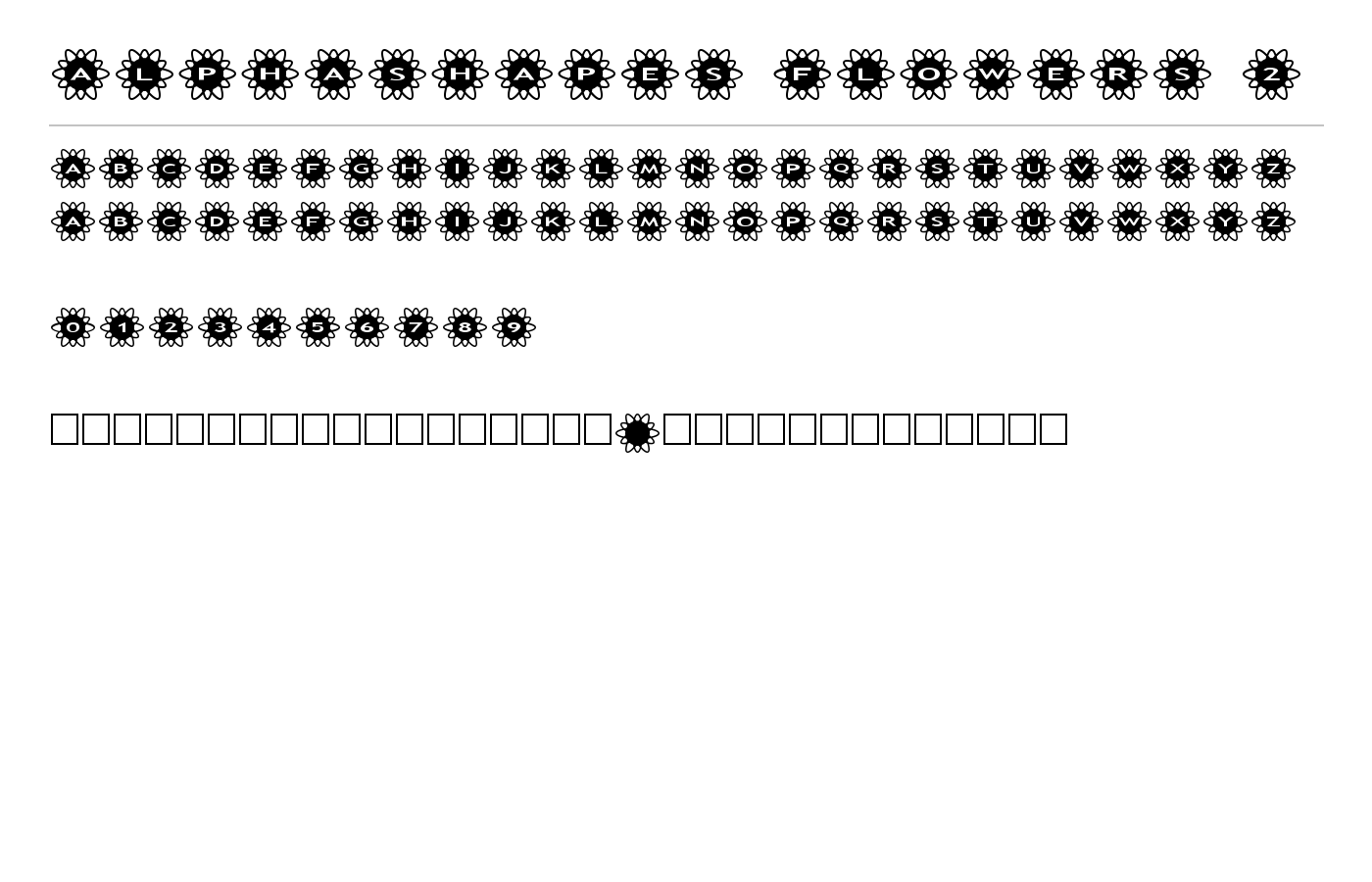
AlphaShapes Flowers 2 is a playful decorative font featuring bold, uppercase letters enclosed within charming floral shapes. With its whimsical and eye-catching design, this font is perfect for creative projects, such as party invitations, children's materials, or fun branding that seeks a cheerful and lively feel. Its unique flower motifs make it an excellent choice for headlines or decorative elements rather than body text, adding a burst of personality to any design.
AlphaShapes flowers 2 Font
About AlphaShapes flowers 2 Font